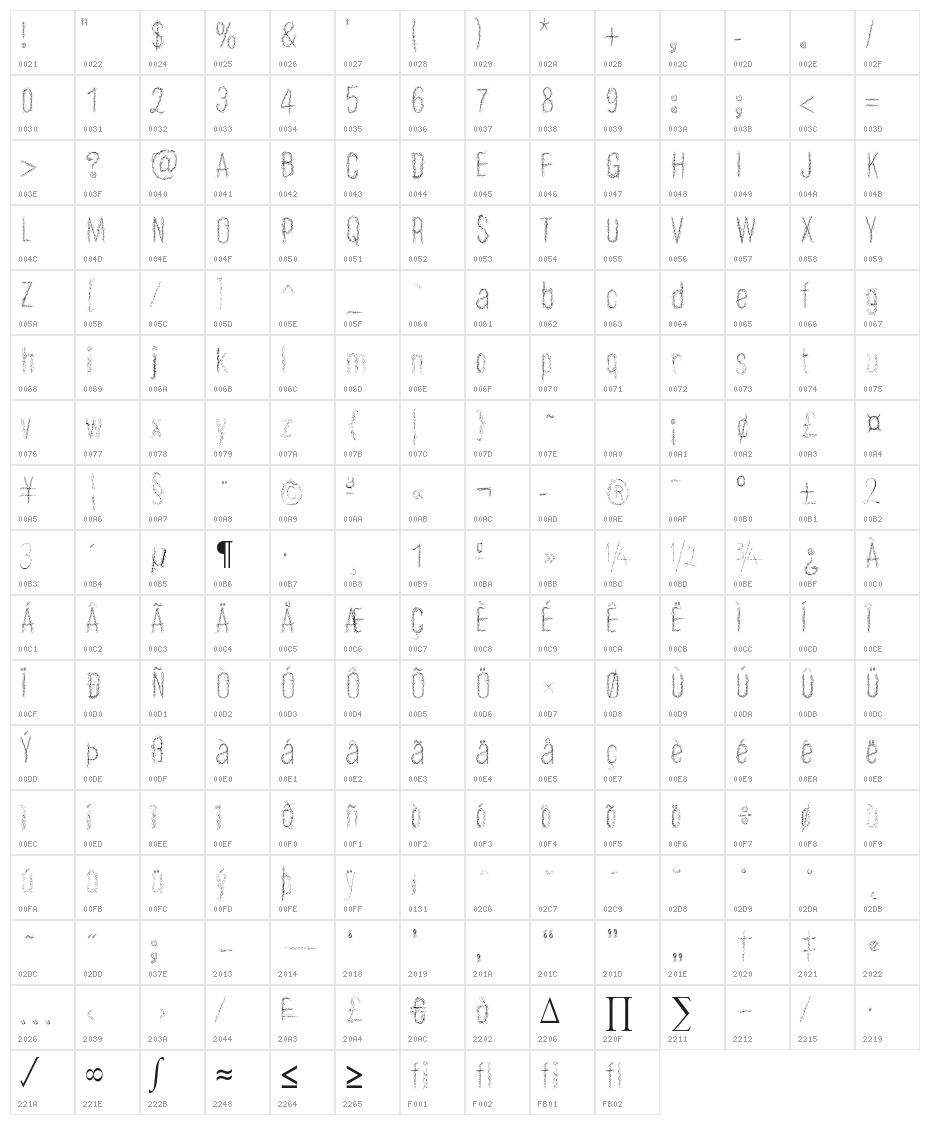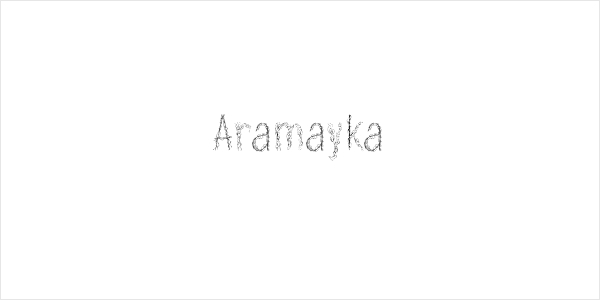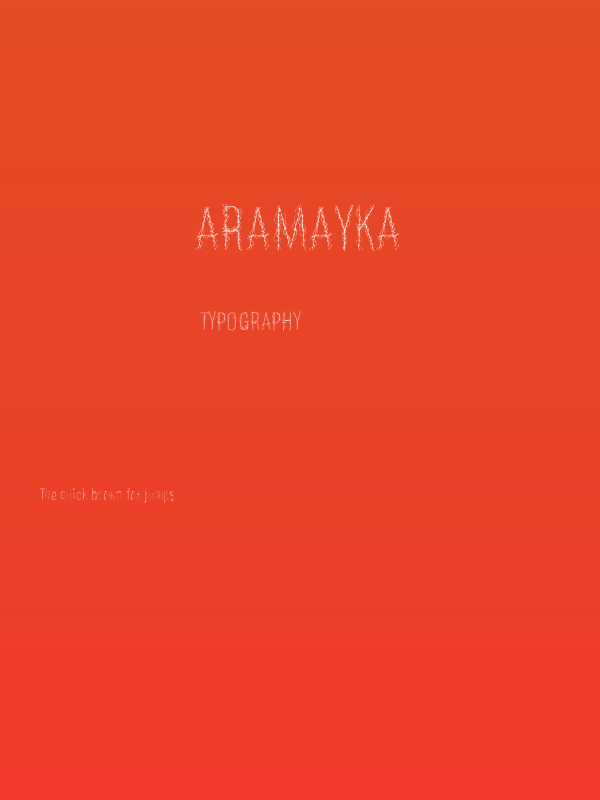
Aramayka Font
Aramayka Description
This font features an intricate, organic design that resembles tangled vines or roots. Each character is composed of delicate, intertwining lines that create a sense of natural chaos and complexity. The uppercase and lowercase letters maintain a consistent style, with the uppercase being slightly more pronounced. The numbers and special characters follow the same intricate pattern, ensuring a cohesive look across all glyphs. This font's unique style makes it stand out, offering a visually striking appearance that draws attention.
| Use Case | Logos, Posters, Book covers |
| Proposed Projects | Ideal for projects that require a natural or organic theme, such as environmental campaigns, botanical illustrations, or fantasy book covers. |